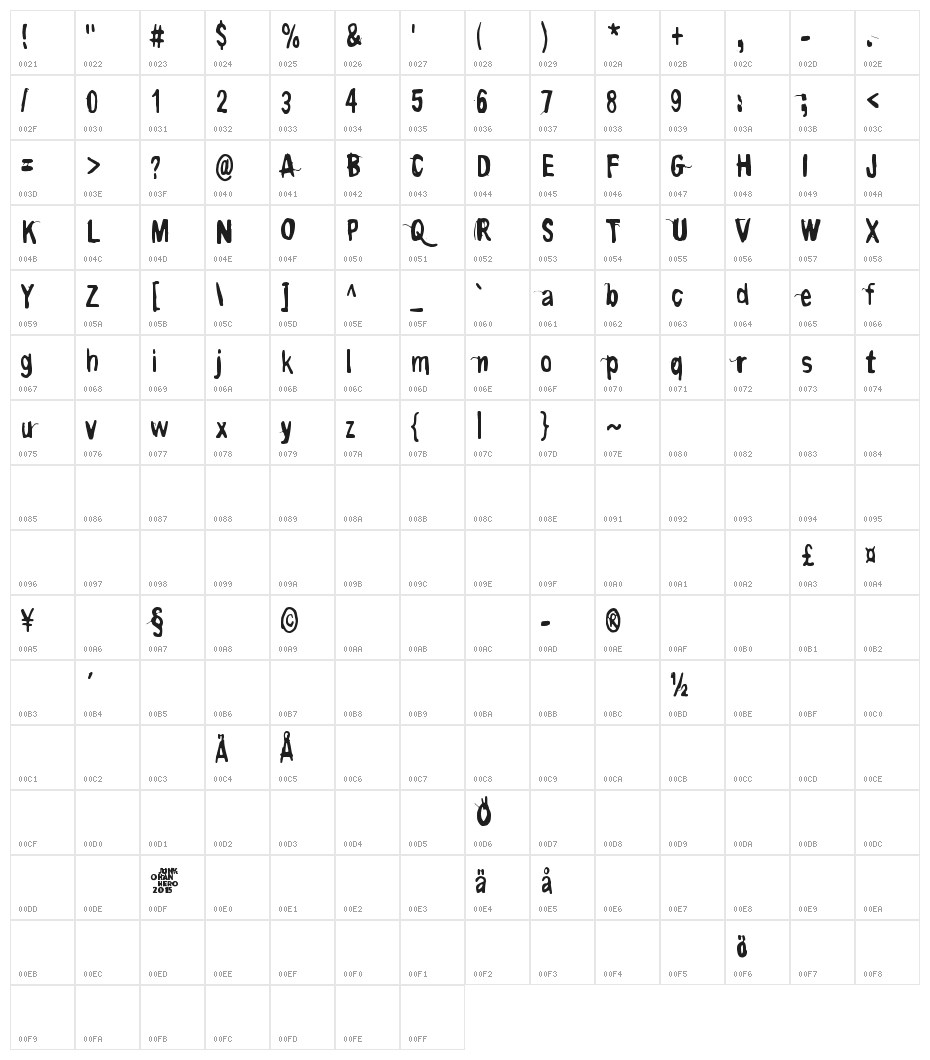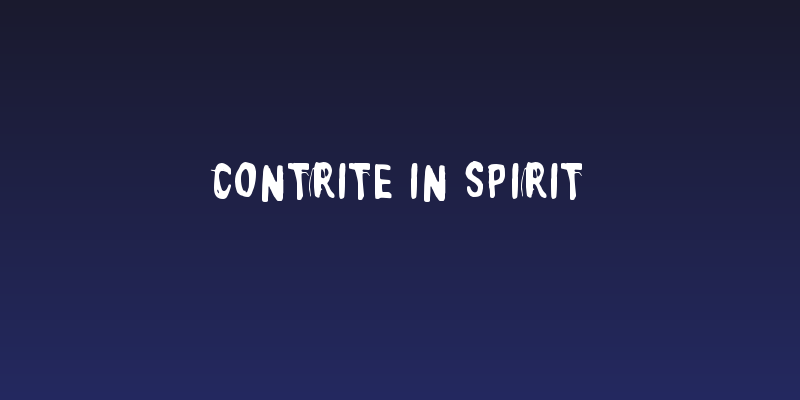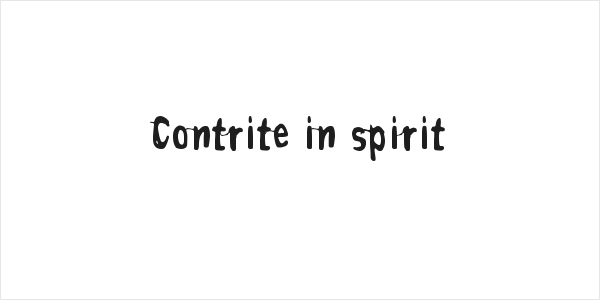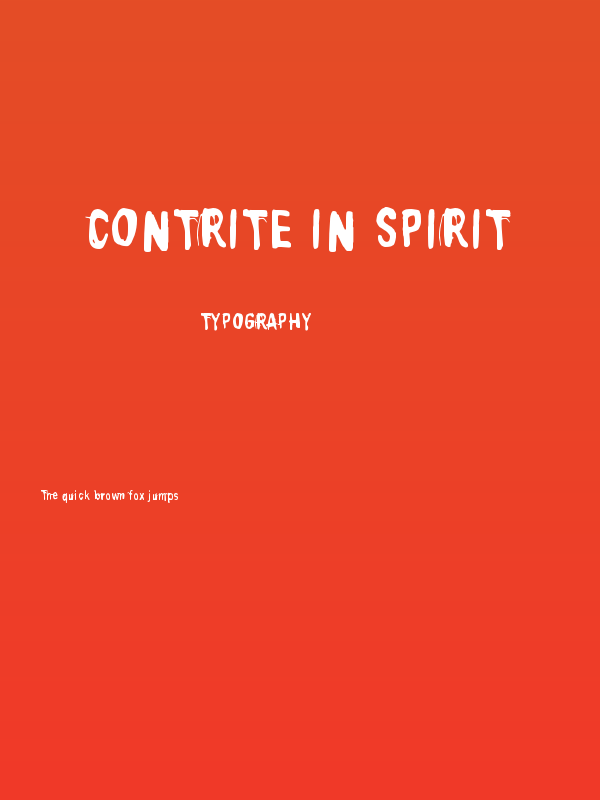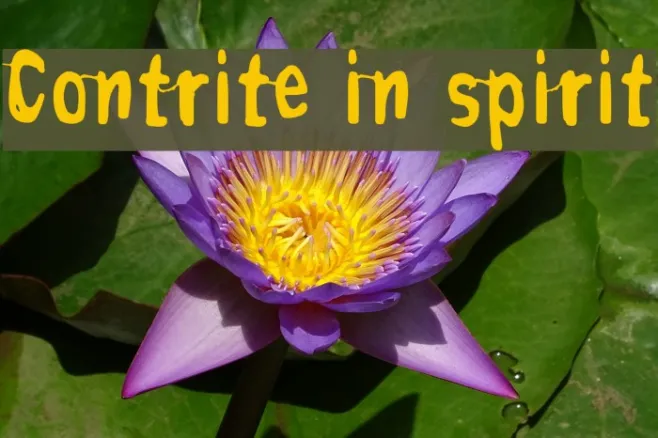
Contrite in spirit Font
Contrite in spirit Description
This font features a bold, hand-drawn style with a playful and slightly irregular appearance. The characters are thick and uneven, giving it a casual and artistic feel. The uppercase letters are bold and prominent, while the lowercase letters maintain a consistent style with a slightly more compact form. Numbers and special characters follow the same hand-crafted aesthetic, adding to the font's unique charm. The overall look is reminiscent of a handwritten note, making it suitable for projects that require a personal touch.
| Proposed Projects | Ideal for creative projects such as posters, greeting cards, children's books, and branding materials that require a personal and artistic touch. |